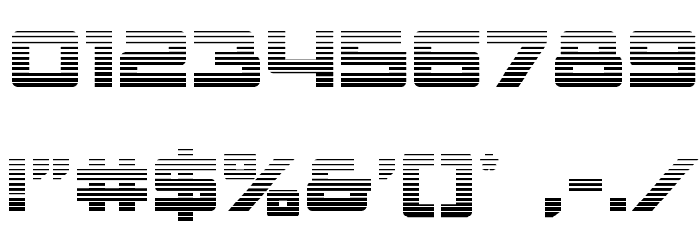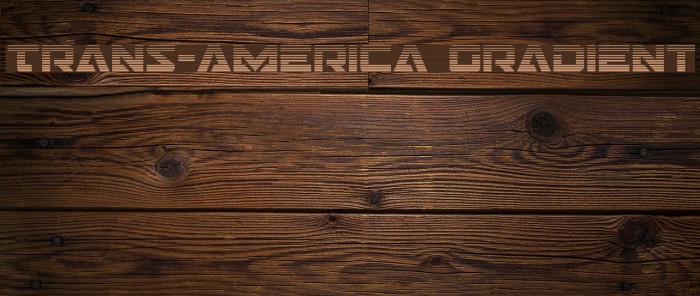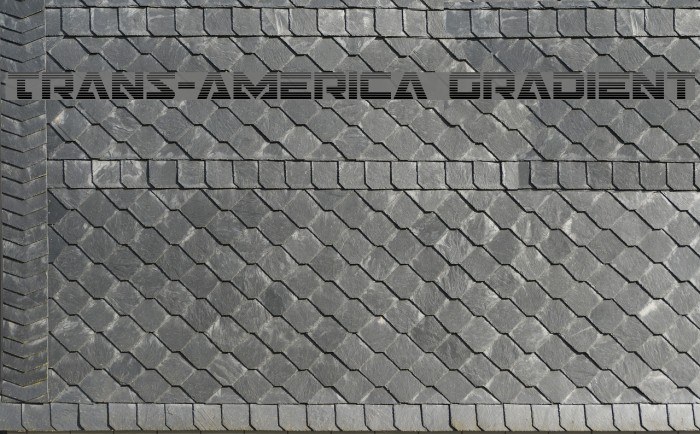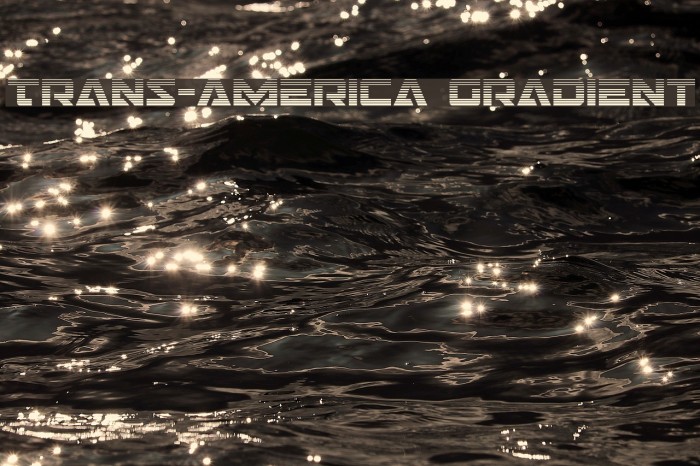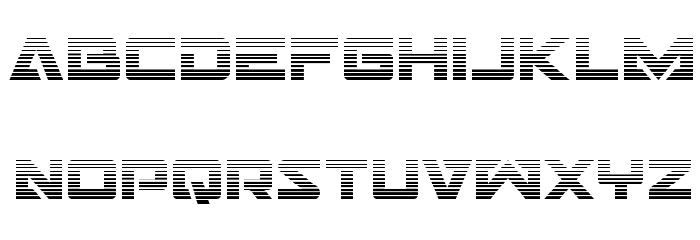
Trans-America Gradient Font
Trans-America Gradient Description
This font features a unique, futuristic design characterized by horizontal lines that create a gradient effect across each character. The uppercase and lowercase letters, as well as numbers and special characters, are constructed with a series of parallel lines that give the font a dynamic and modern appearance. The geometric shapes are bold and striking, making it ideal for attention-grabbing designs. The consistent line pattern across all characters provides a cohesive look, while the angular edges add a sense of movement and energy.
| Proposed Projects | Ideal for sci-fi themed projects, modern branding, digital artwork, and futuristic posters. |